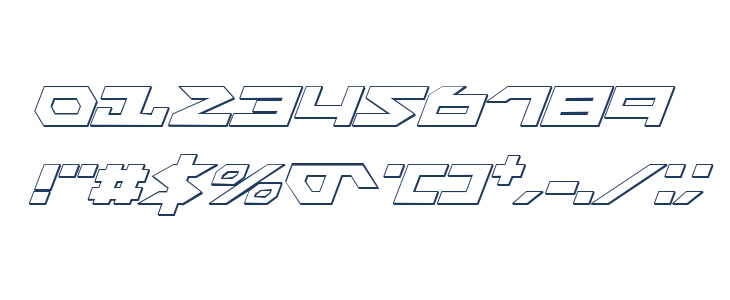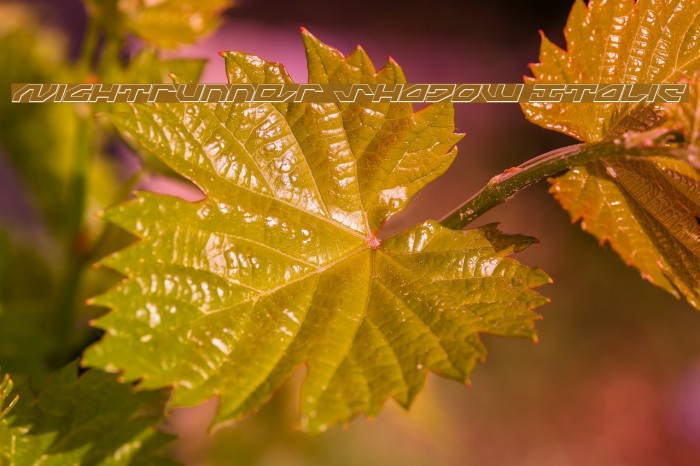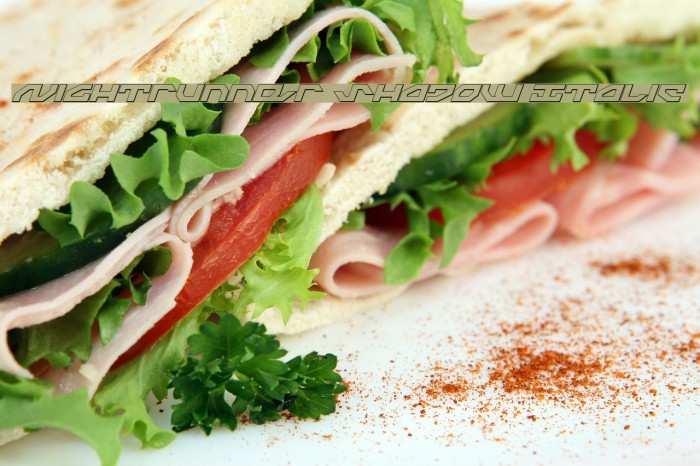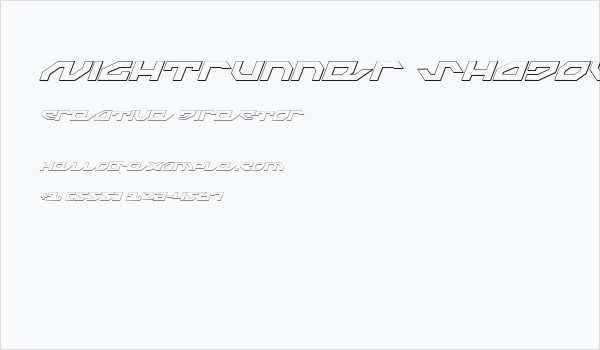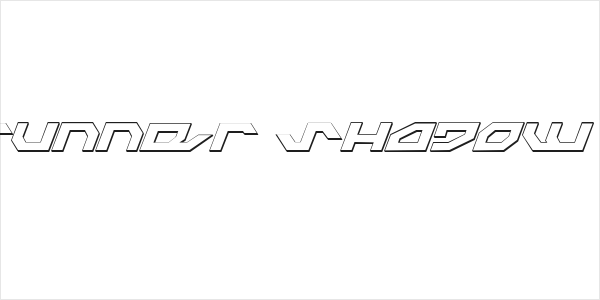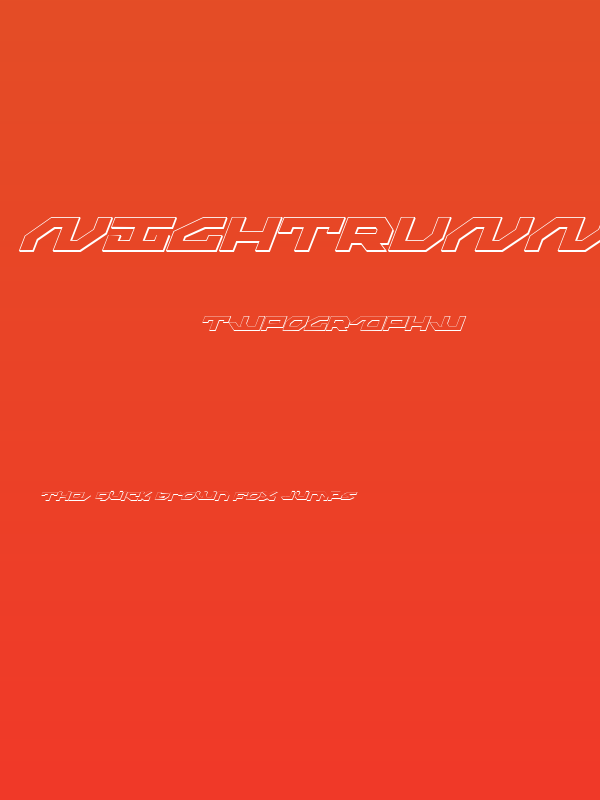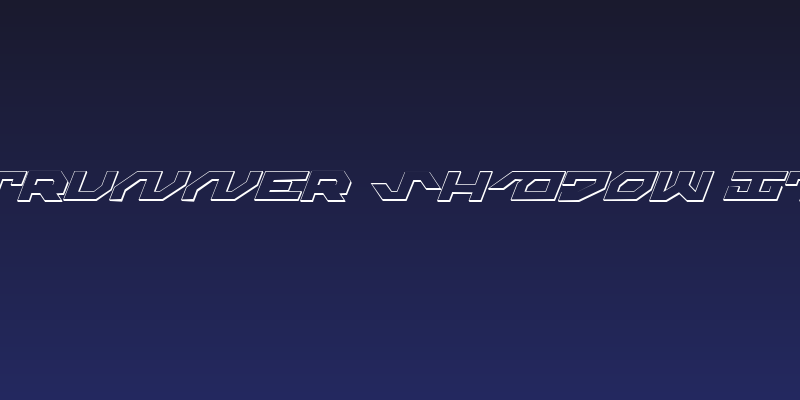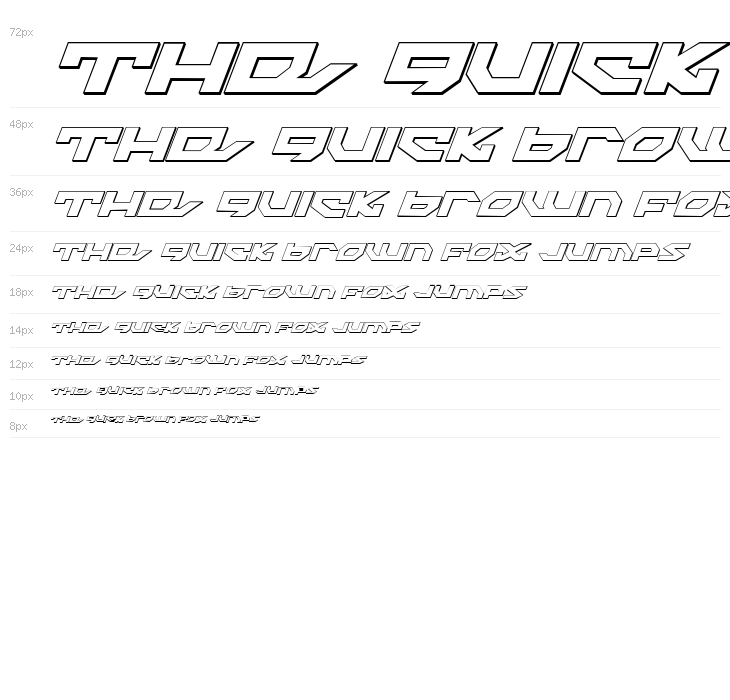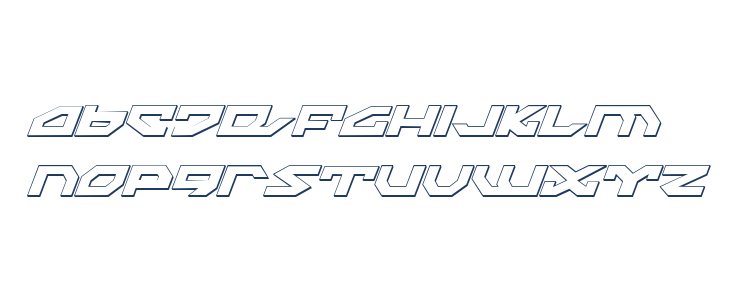
Nightrunner Shadow Italic Font
Nightrunner Shadow Italic Description
This font features a futuristic and angular design, characterized by sharp edges and a dynamic slant that gives it a sense of motion and energy. The uppercase and lowercase letters maintain a consistent geometric style, with each character exhibiting a unique cut-out effect that adds depth and dimension. The numerals and special characters follow the same design principles, ensuring a cohesive look across all glyphs. The font's outline style enhances its modern and tech-inspired aesthetic, making it suitable for projects that require a bold and striking visual impact.
| Proposed Projects | Ideal for sci-fi themed designs, video game titles, tech branding, and futuristic posters. |